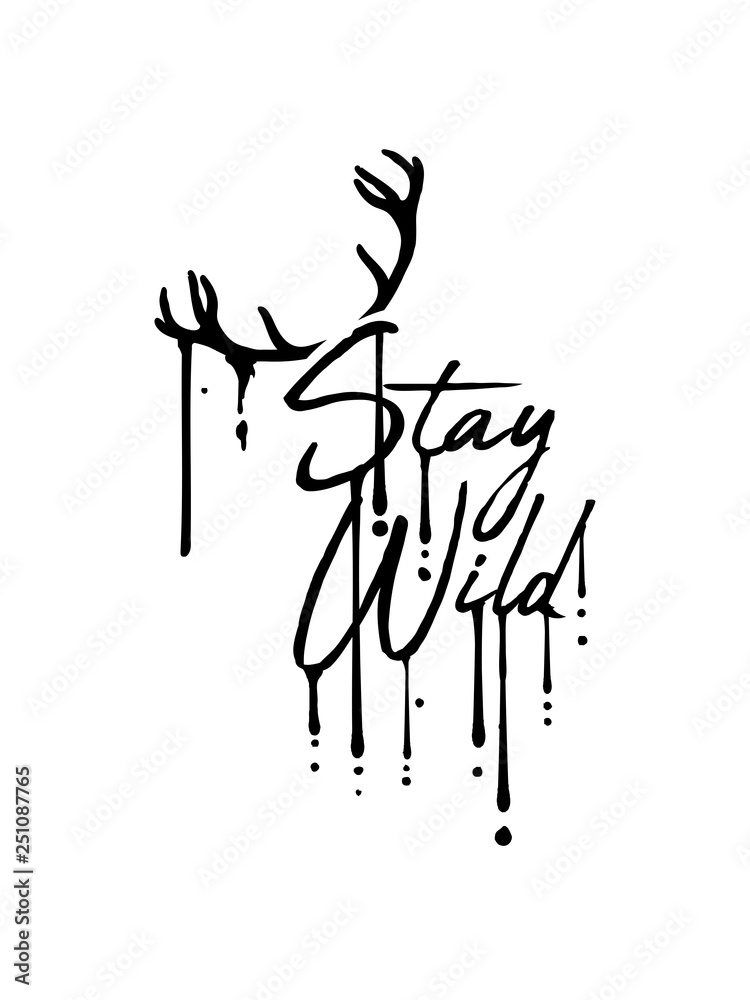
Stay Wild Different Fonts
Handwriting fonts imitate real handwriting, making them appear authentic, intimate, and classic. We have created it with a imperfect flow that will give your text a unique. You have the right to use font in your personal use work ( work where you are not paid for your service, and where there is.
It is not an exact copy of the text in the game, but it is very similar and includes several special characters that are not used in the game. Stay writer is hand drawn display font, every single letters have been carefully crafted to make your text looks beautiful. The smaller font under each word tells the actual name of the font.
The reason is that these are unicode of different standard values and not actual fonts. It has thick letters and a friendly touch, and as a result, it will match a wide range of informal designs. The font family comes with 128 different typefaces, covering light, heavy, roman, outline, condensed, and other stylings.
To wrap it all up: Making it a suitable choice for designing both titles and. It’s best to keep this style limited to titles only, as writing.
Kannada (ಕನ್ನಡ) is the native language of the kannadiga ethnic group, and the official language of karnataka state in india. Examples include wix's own madefor font, helvetica, and the infamous comic sans. But to use the “cool fonts” generated by this website you just have to copy and paste it wherever you want to use this.
It was designed by artsy omni and is derived from the text used in breath of the wild. Hylia serif is probably the “breath of the wild font” you are looking for. Making the web more beautiful, fast, and open through great typography